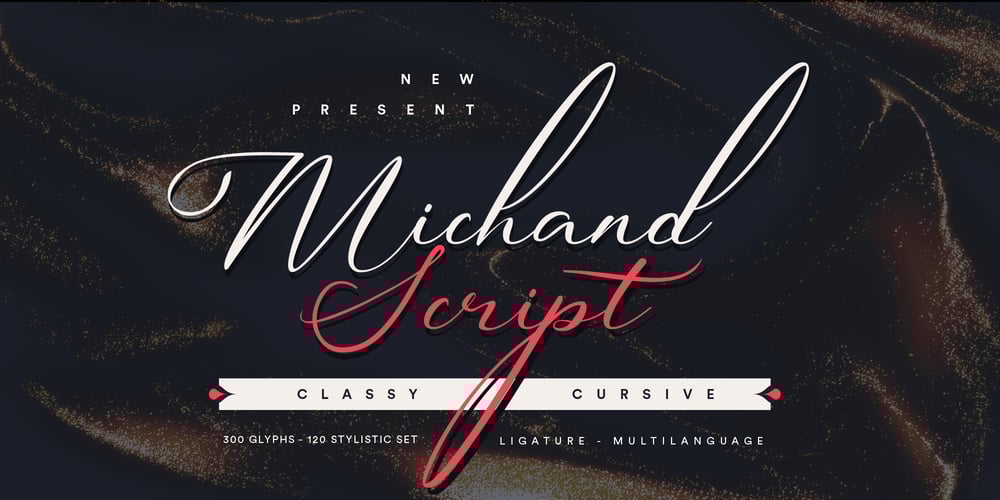
Michand
Michand font
Michand Font Family was designed by panji nugroho and published by Storictype. Michand contains 1 styles and family package options. Introduce new modern calligraphy font, Michand Script. This beautiful swash script is for those who are needing of elegance and stylish for their designs and particularly well suited for wedding invitations, save the date cards and feminine branding, logos, postcard, letterpress address, tittle, and many moreMichand Script includes full set of: Uppercase Lowercase Numerals Punctuation ligatures stylistic alternates I hope you enjoy this font and as always, any feedback and questions are welcomed